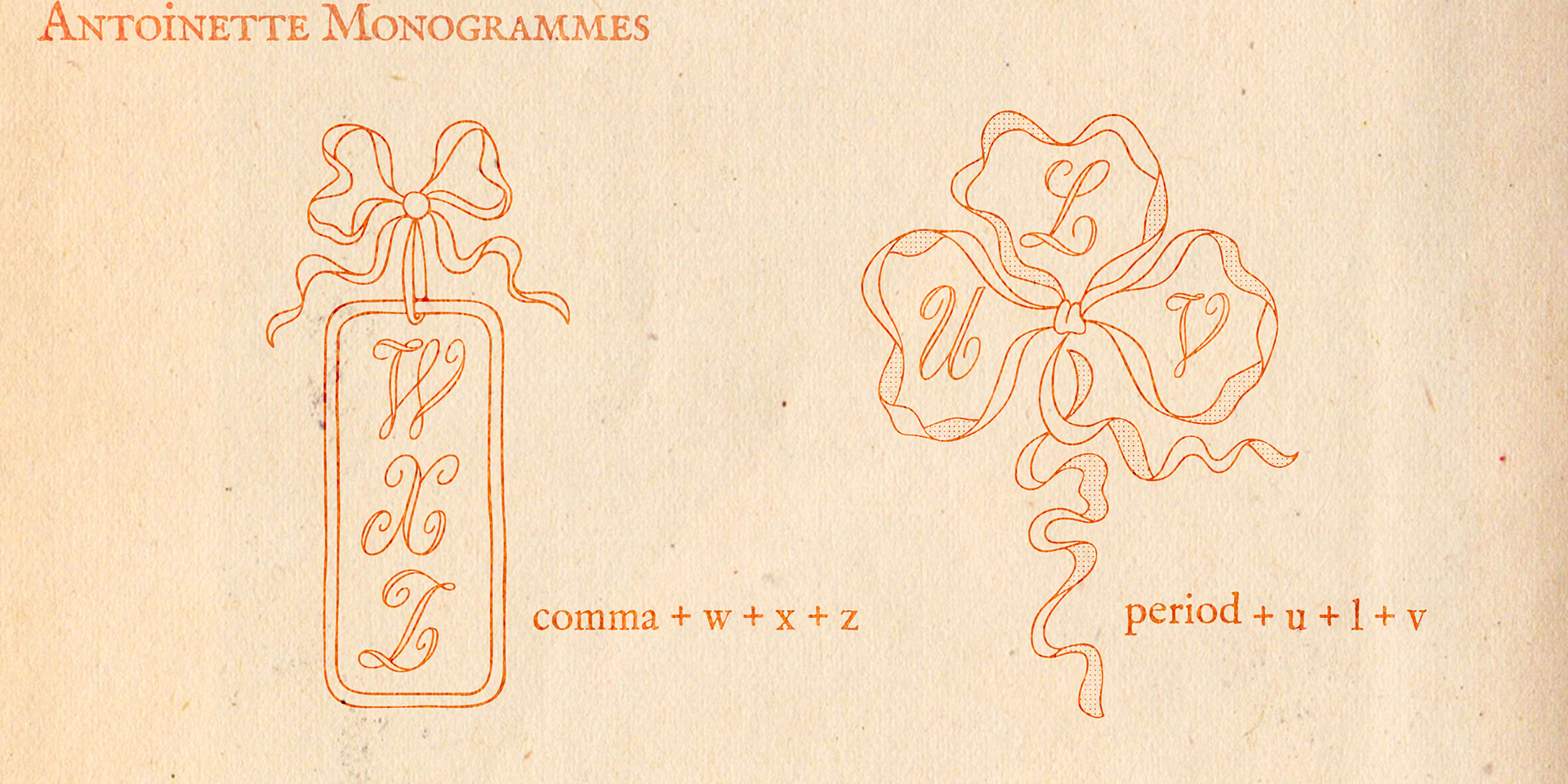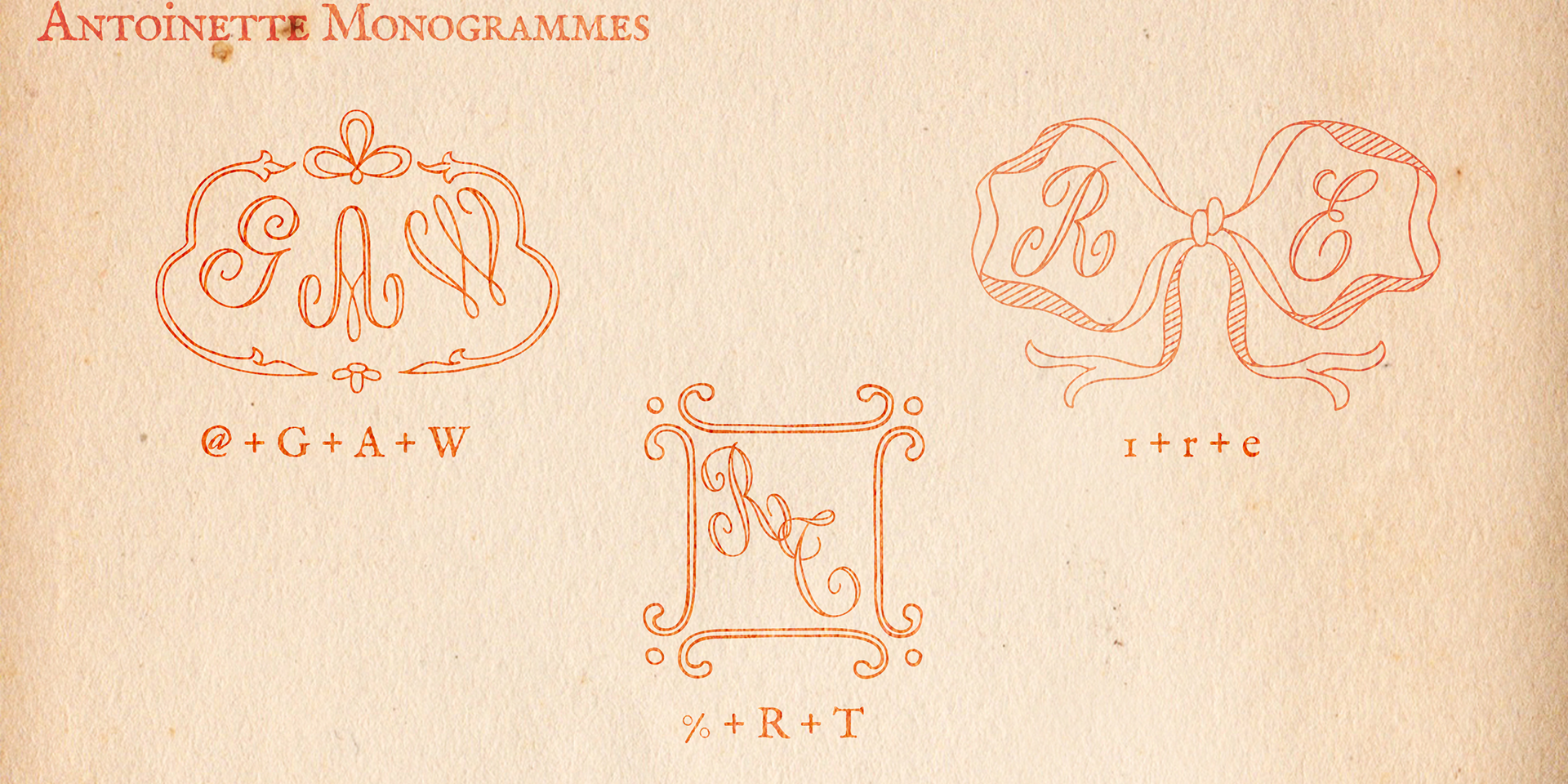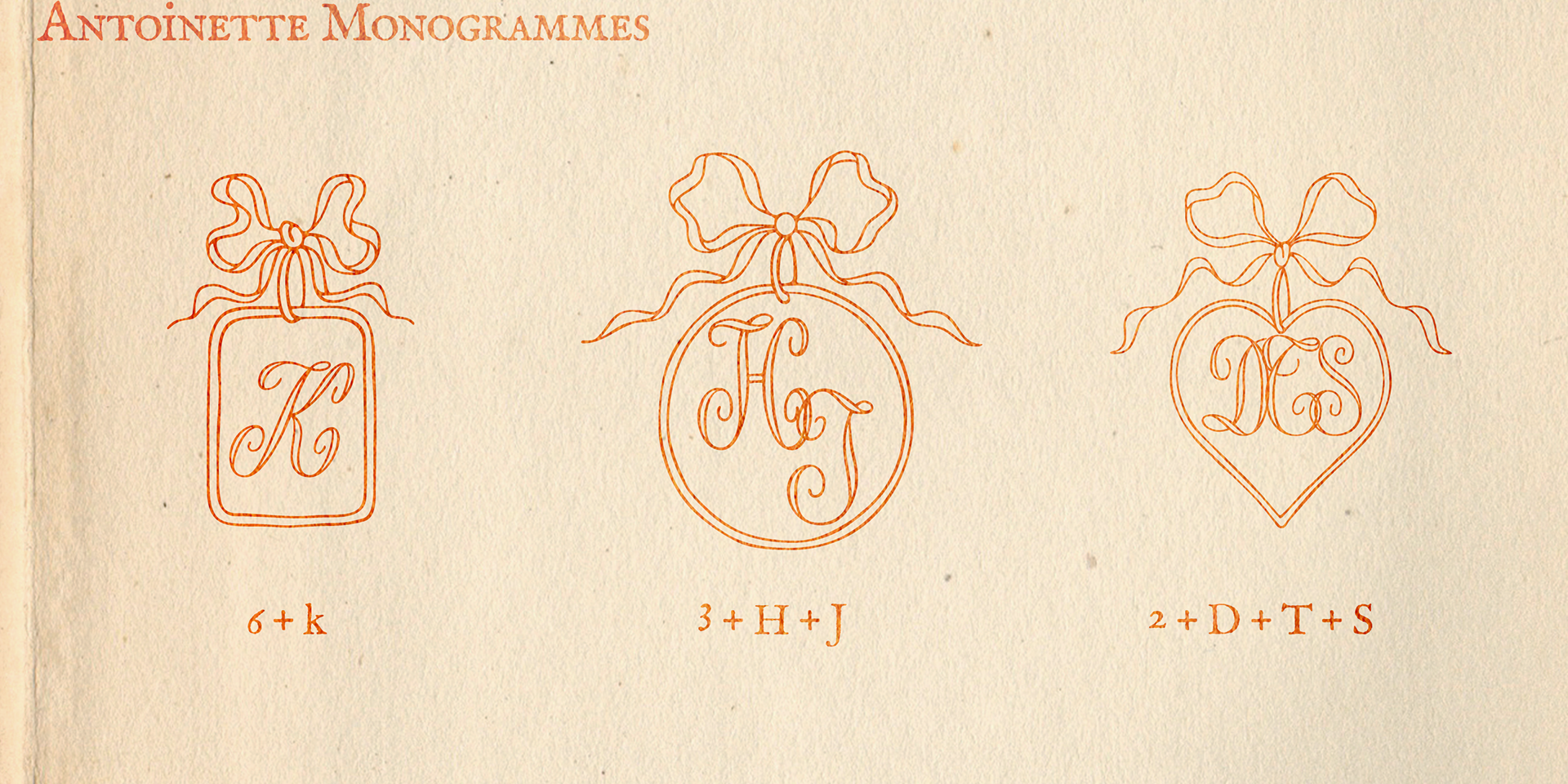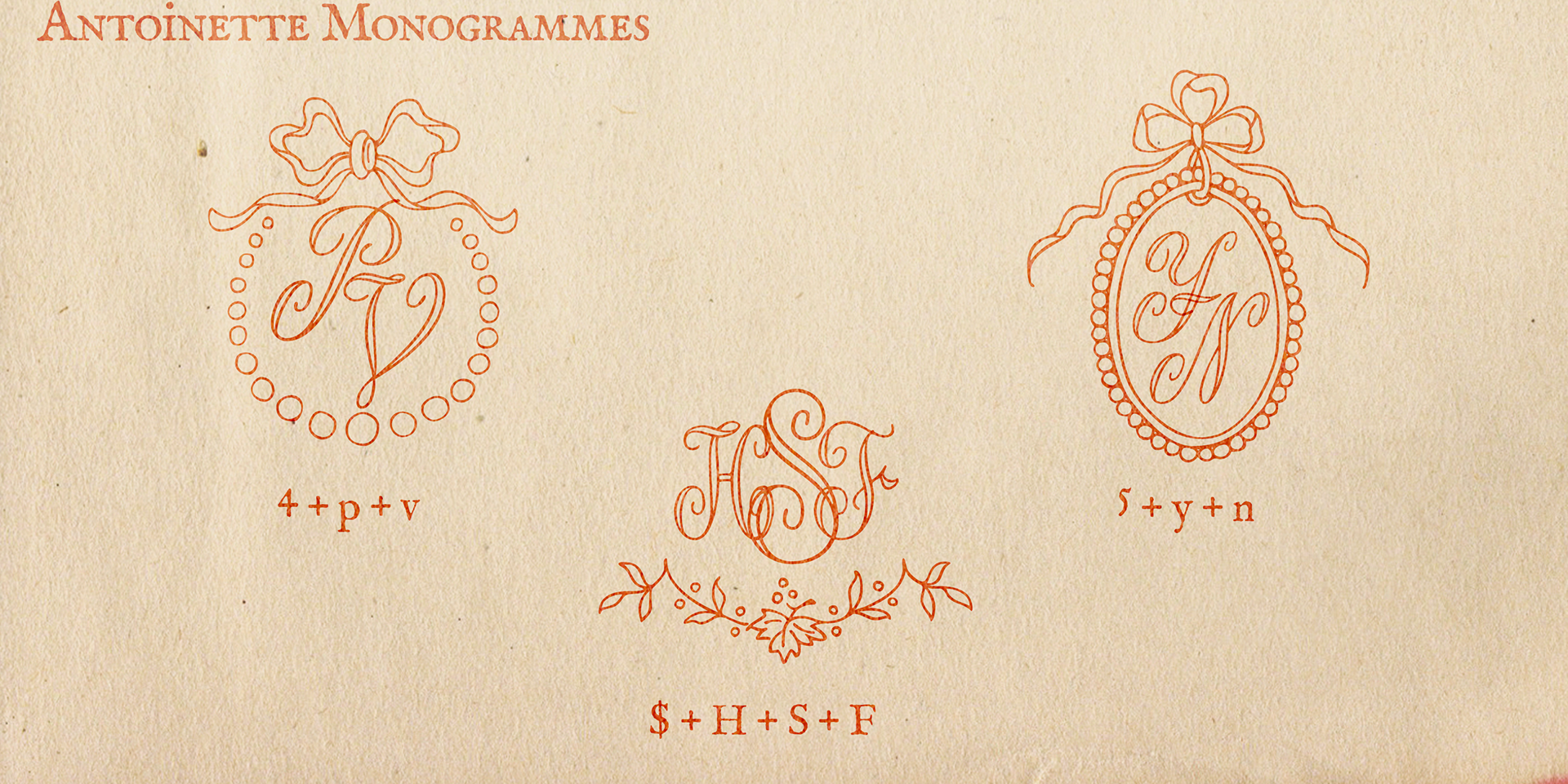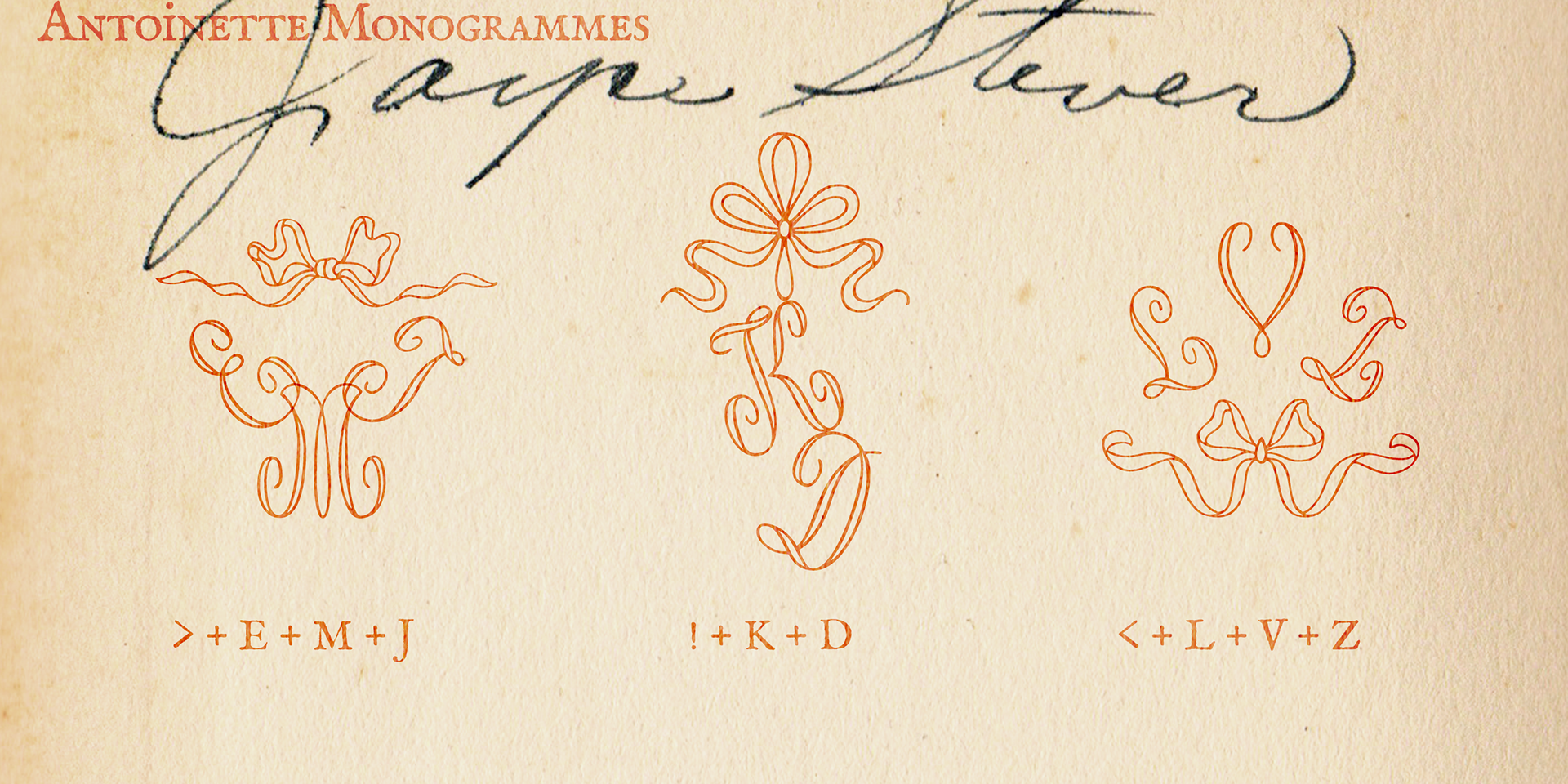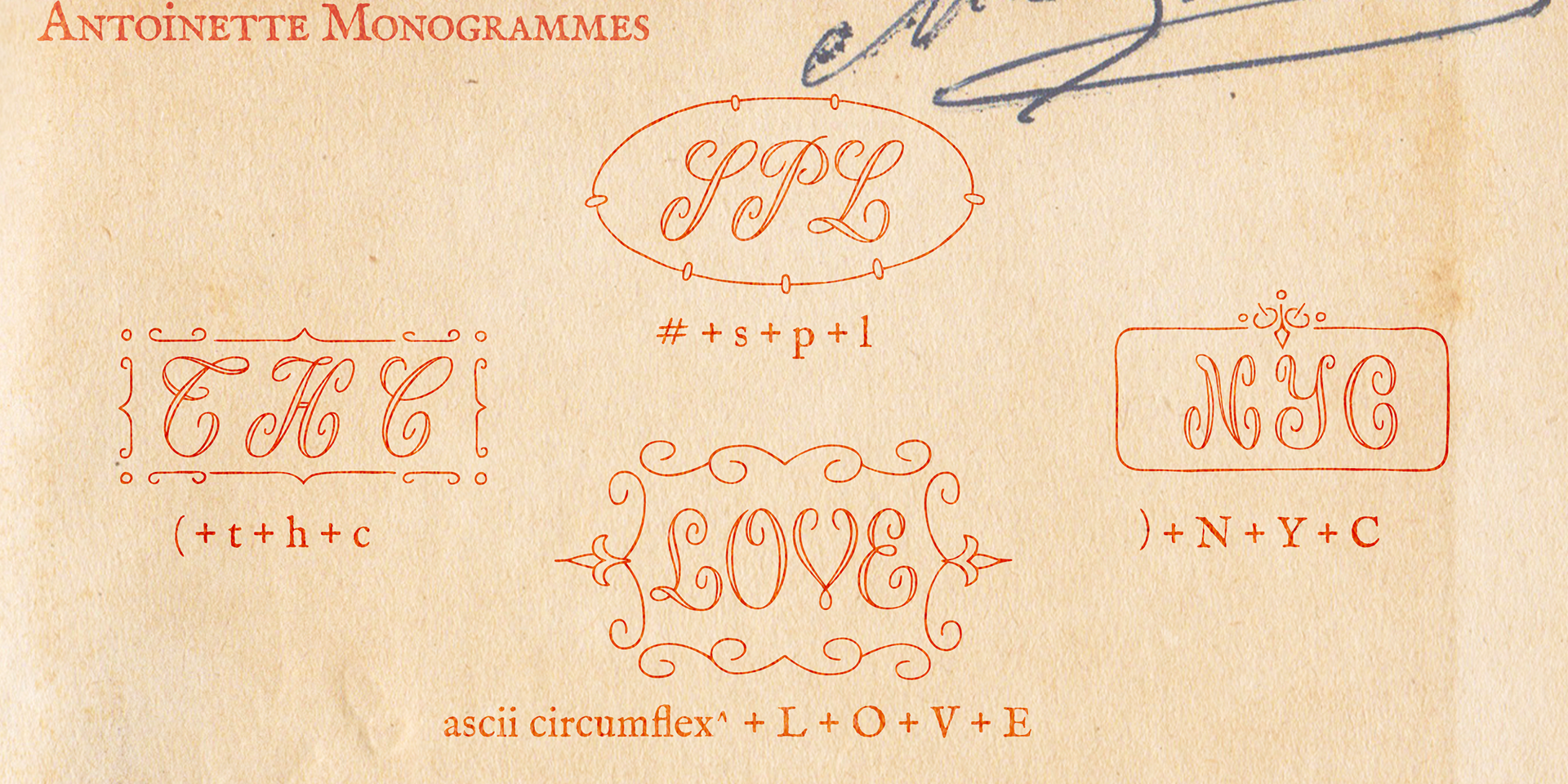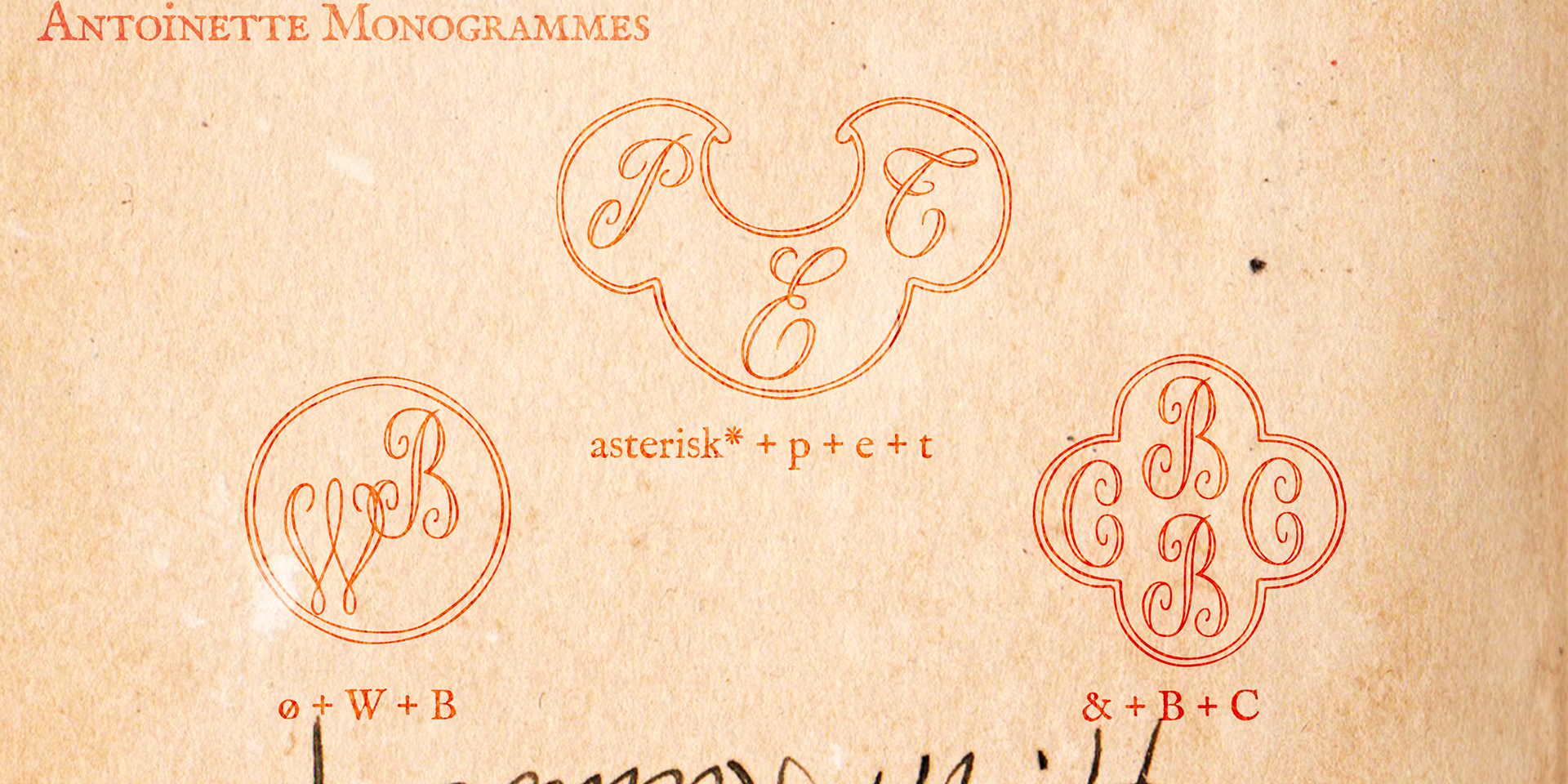
Antoinette Monogrammes
Antoinette Monogrammes is a monogram font inspired by early 20th-century embroidery designs by Janon Co.
This charming set includes upright script capitals, slanted script capitals, and 24 ornate frames—allowing you to create personalized monograms with a warm, handcrafted feel.
Perfect for wedding invitations, scrapbooks, custom stamps, logos, and more.
---Upright script capitals can be accessed using uppercase keys (A–Z).
---Slanted script capitals are available through lowercase keys (a–z).
---Frames are mapped to numbers (0–9) and symbols: ! @ # $ % ^ & * ( ) . , < >